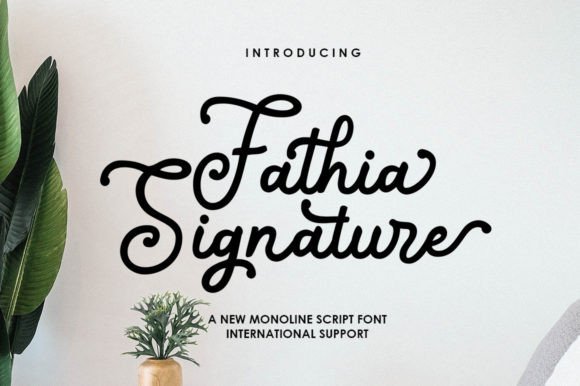
Fathia Signature Font: Elevate Your Designs with Elegance and Sophistication
In the world of typography, a signature font can make all the difference in setting your designs apart from the rest. For designers and crafters looking to add a touch of elegance and sophistication to their projects, Fathia Signature Font is an exquisite choice. This beautifully crafted handwritten font is designed to capture the essence of classic calligraphy while boasting a fresh and contemporary feel.
The Beauty of Fathia Signature Font
Fathia Signature Font is a masterfully designed typeface that effortlessly blends traditional calligraphic influences with modern sensibilities. The result is a font that exudes class and refinement, making it perfect for a wide range of applications, from wedding invitations and branding materials to packaging and digital media.
One of the standout features of Fathia Signature Font is its intricate details and flowing lines, which give it a sense of movement and fluidity. The font’s elegant swashes and glyphs add an extra layer of sophistication, allowing designers to create truly stunning pieces that are sure to leave a lasting impression.
Why Choose Fathia Signature Font?
So why choose Fathia Signature Font for your next design project? Here are just a few compelling reasons:
- Elegant and sophisticated design: Fathia Signature Font boasts a beautiful, classy design that is sure to elevate your projects to the next level.
- Contemporary feel: Despite its calligraphic influences, the font has a fresh and modern feel that will help your designs stand out in a crowded marketplace.
- Versatile: Fathia Signature Font is suitable for a wide range of applications, from wedding invitations and branding materials to packaging and digital media.
Tips for Using Fathia Signature Font
To get the most out of Fathia Signature Font, here are a few tips to keep in mind:
- Use it sparingly: While Fathia Signature Font is beautiful, it’s best used sparingly to avoid overwhelming the reader. Try using it for headings or titles, and pairing it with a simpler font for body text.
- Experiment with glyphs and swashes: Don’t be afraid to get creative with the font’s glyphs and swashes. Experiment with different combinations to add visual interest to your designs.
- Pair it with complementary fonts: To create a cohesive look, try pairing Fathia Signature Font with complementary fonts that share similar design elements.